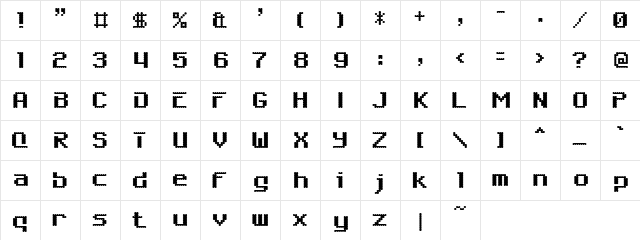
6809chargen Regular
Design Context for 6809chargen Typeface
6809chargen offers clean, dependable letterforms without strong stylistic allegiance, making it a practical choice for designers who need flexibility.